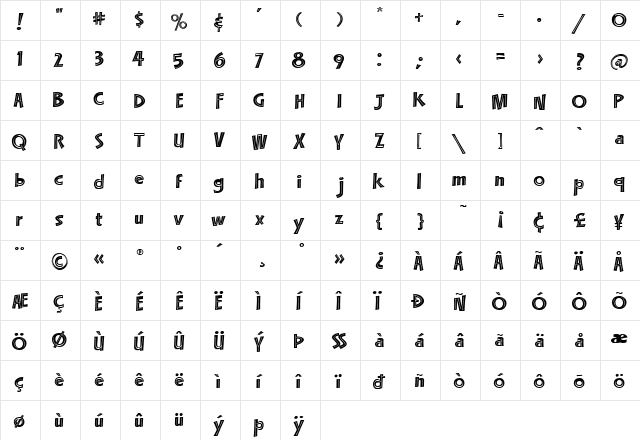
LHF Happy Fun Ball INLINE Regular
Design Context for LHF Happy Fun Ball INLINE Typeface
LHF Happy Fun Ball INLINE has an approachable, lighthearted character — its loose, expressive forms are well-suited to children's content, casual branding, and fun-first design.
Font Pairing: Pairs well with a rounded or humanist sans for body copy, maintaining the friendly tone without relying on LHF Happy Fun Ball INLINE to carry extended reading.
Pro Tip: Avoid using LHF Happy Fun Ball INLINE for long passages of text — it works best for headlines, labels, and short calls to action.